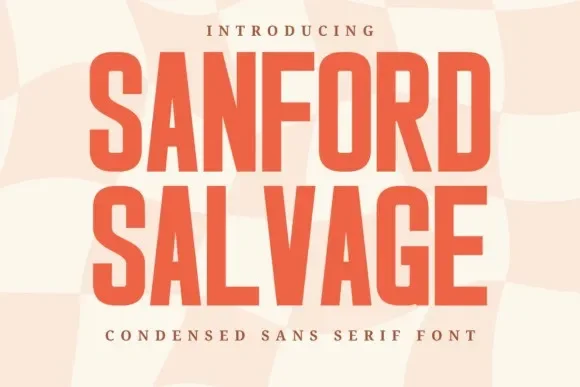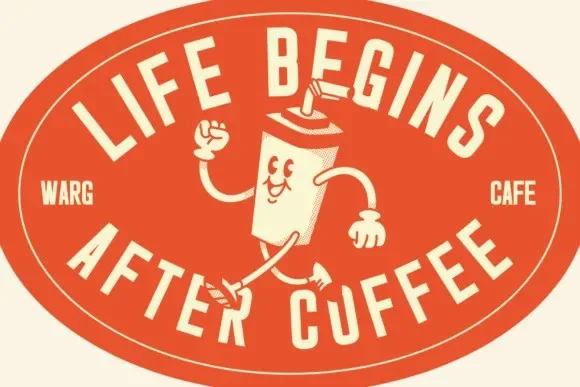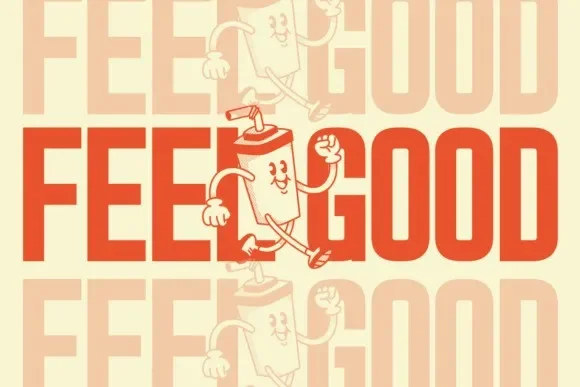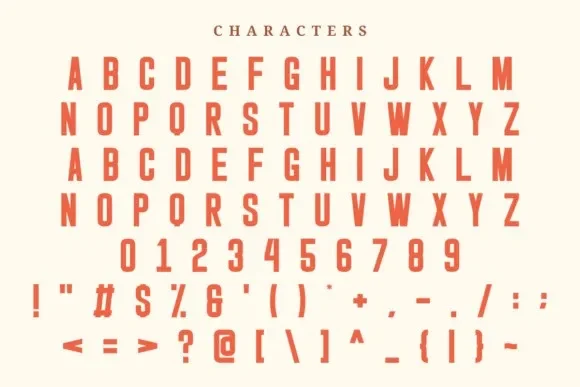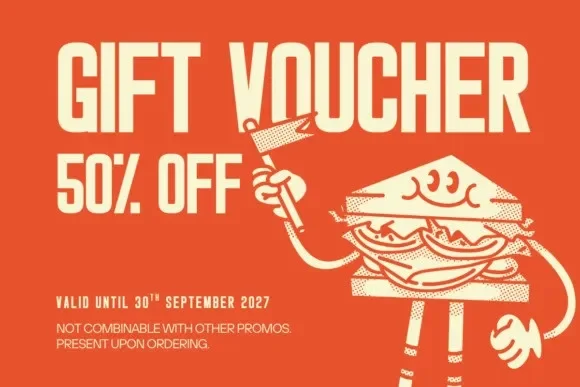
Sanford Salvage Font addresses a common branding challenge: creating bold visual impact while keeping text readable in posters, logos, and merchandise. Many distressed display fonts lose clarity when scaled, especially in print layouts and social media graphics.
Sanford Salvage is a distressed display font with irregular edges, textured strokes, and uneven letterforms. The font mimics worn printing techniques, using rough contours instead of smooth curves. Stroke weight remains fairly consistent, which helps maintain legibility despite the rugged style.